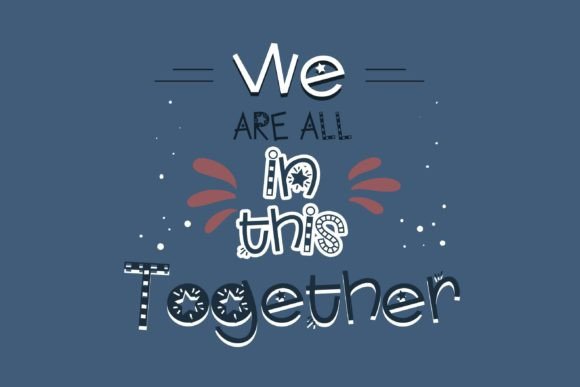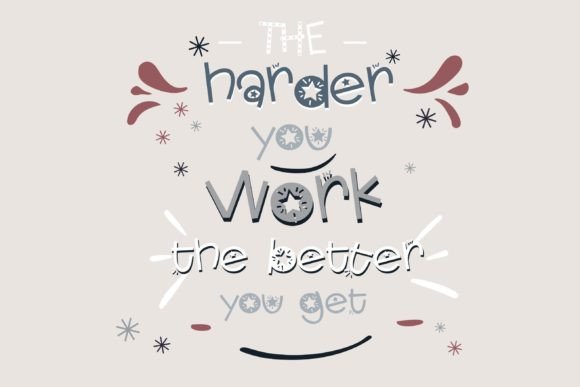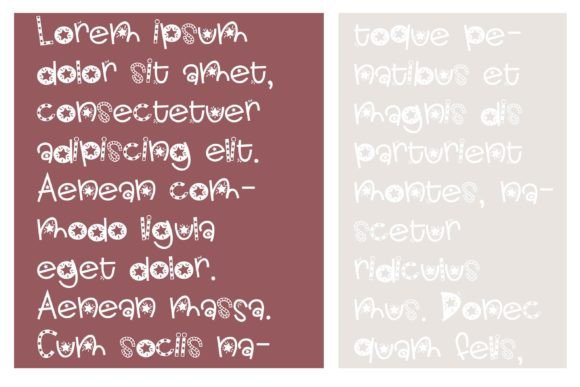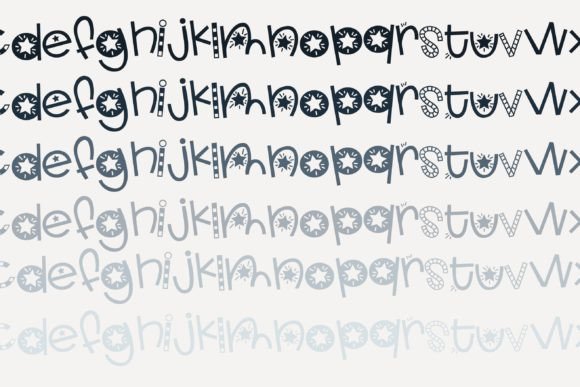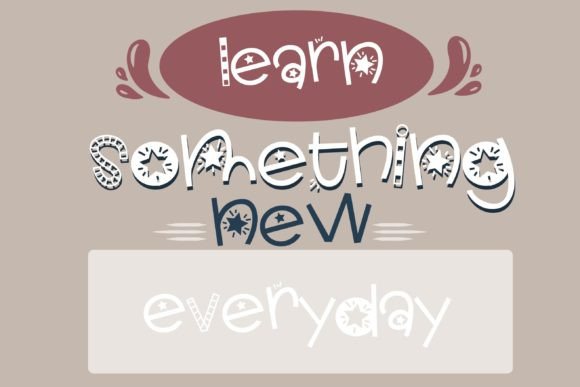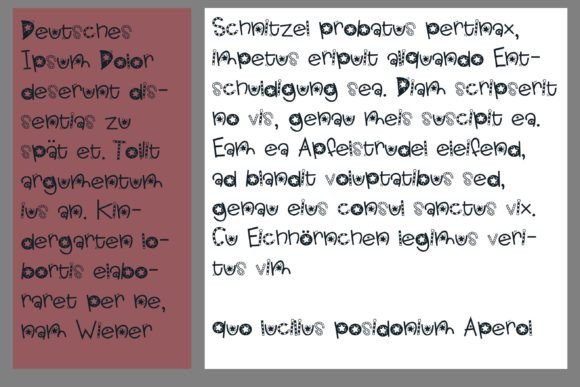
Cutesie Americana Font: A Patriotic Design Element for Your Creative Projects
Are you looking for a font that embodies the spirit of America? Look no further than the Cutesie Americana Font. This charming font is designed to capture the patriotic essence of the United States, making it perfect for designers and crafters working on projects related to American themes. In this article, we’ll explore the unique features of Cutesie Americana Font and how it can add a touch of patriotism and flair to your creative projects.
A Font that Celebrates American Patriotism
Cutesie Americana Font is a one-of-a-kind typeface that incorporates stars and stripes motifs into its letterforms. Each character showcases a unique arrangement of stars, carefully intertwined with elegant stripes, resulting in a visually striking and patriotic design. The font’s design is inspired by the American flag, paying homage to the proud symbol of the United States of America.
Perfect for Creative Projects with an American Twist
Whether you’re designing a flyer, poster, or any creative project related to American themes, Cutesie Americana Font is the perfect choice. The font’s patriotic design adds a touch of Americana to any project, making it ideal for designers and crafters who want to create something truly unique and eye-catching. From Independence Day celebrations to patriotic-themed crafts, this font is sure to make your project stand out.
Unique Features of Cutesie Americana Font
So, what makes Cutesie Americana Font so special? Here are just a few of its unique features:
- Patriotic design: The font’s stars and stripes motifs make it a perfect fit for American-themed projects.
- Unique character arrangements: Each character features a unique arrangement of stars and stripes, ensuring that your project will stand out.
- Elegant and visually striking: The font’s design is both elegant and visually striking, making it perfect for a wide range of creative projects.
How to Use Cutesie Americana Font in Your Projects
Using Cutesie Americana Font in your projects is easy. Here are a few ideas to get you started:
- Patriotic posters: Create eye-catching posters for Independence Day celebrations or other American-themed events.
- American-themed crafts: Add a touch of patriotism to your crafts, such as DIY signs, banners, or decorations.
- Flyers and brochures: Use Cutesie Americana Font to create patriotic flyers and brochures for American-themed events or businesses.
Tips for Getting the Most Out of Cutesie Americana Font
Here are a few tips for getting the most out of Cutesie Americana Font:
- Use it sparingly: While Cutesie Americana Font is perfect for American-themed projects, it’s best to use it sparingly to avoid overwhelming your design.
- Pair it with complementary fonts: Pair Cutesie Americana Font with complementary fonts to create a visually striking design.
- Experiment with colors: Experiment with different colors to find the perfect combination that complements your project’s theme.
Cutesie Americana Font is a unique and patriotic design element that’s perfect for designers and crafters working on American-themed projects. With its stars and stripes motifs, elegant design, and visually striking character arrangements, this font is sure to add a touch of patriotism and flair to any creative project. Whether you’re designing a flyer, poster, or craft, Cutesie Americana Font is the perfect choice for anyone looking to celebrate American spirit.